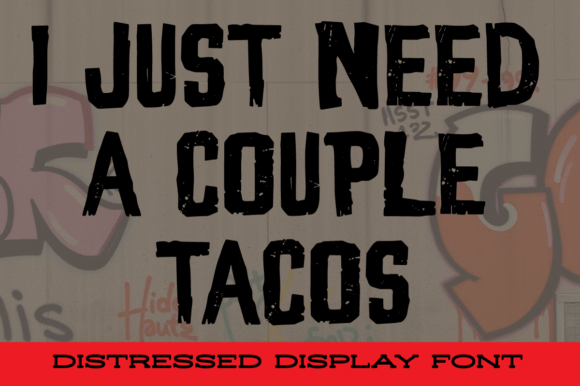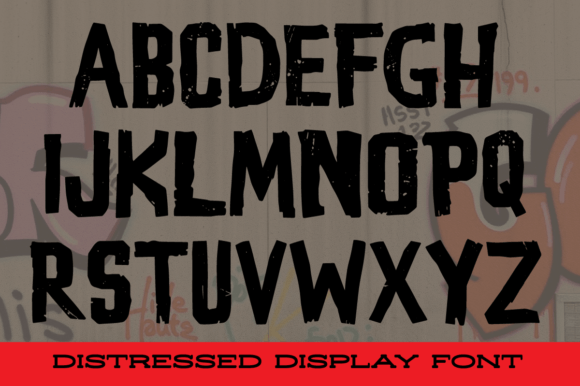
Dystorix Font: Unleash Your Rebellious Creativity
In the world of typography, fonts play a crucial role in conveying emotions, setting tone, and creating visual impact. For designers and crafters looking for a bold, edgy, and unconventional look, the Dystorix font is an excellent choice. This handcrafted font is designed to evoke a raw, rebellious energy, making it perfect for projects that require a gritty, distressed aesthetic.
The Raw, Grungy Look of Dystorix
Dystorix is a bold, grungy font that exudes an air of imperfection. Each letter appears to be roughly sketched by hand, with thick strokes that vary in width, giving the font an uneven, organic look. The characters are distressed, with chipped edges, splattered ink effects, and irregular cracks, as if they’ve been weathered by time or scratched onto a gritty surface. This unique texture adds a layer of depth and character to any design, setting it apart from more polished, conventional fonts.
Key Features of Dystorix Font
- Handcrafted with Imperfections: Each letter in Dystorix is carefully crafted to appear imperfect, as if drawn by hand with a bold, expressive stroke.
- Distressed Texture: The font features a distressed texture, complete with chipped edges, splattered ink effects, and irregular cracks, giving it a worn, weathered look.
- Bold and Grungy: Dystorix is a bold font with a grungy aesthetic, making it perfect for designs that require a strong, attention-grabbing presence.
- Organic Look: The font’s uneven, organic look adds a touch of humanity and whimsy to any design.
Uses for Dystorix Font
Dystorix is a versatile font that can be used in a variety of creative projects, including:
- Branding and Logo Design: The font’s bold, attention-grabbing presence makes it perfect for logos and branding projects that require a strong, memorable identity.
- Poster and Flyer Design: Dystorix is ideal for designing eye-catching posters and flyers that need to stand out from the crowd.
- Social Media Graphics: The font’s distressed texture and grungy aesthetic make it a great choice for social media graphics, such as Instagram posts and Facebook headers.
- Packaging Design: Dystorix can add a touch of edginess and sophistication to packaging design, making it perfect for products that require a bold, attention-grabbing look.
Tips for Using Dystorix Font
To get the most out of Dystorix, here are a few tips to keep in mind:
- Use it Sparingly: Due to its bold, attention-grabbing presence, it’s best to use Dystorix sparingly, as a headline or title font, rather than for body text.
- Experiment with Colors: The font’s distressed texture and grungy aesthetic lend themselves well to bold, bright colors that can help make your design pop.
- Pair it with Contrasting Fonts: Pair Dystorix with a clean, sans-serif font to create visual interest and add contrast to your design.
Dystorix is a unique, handcrafted font that offers a bold, grungy aesthetic perfect for designers and crafters looking to add a touch of rebellion and creativity to their projects. With its distressed texture, uneven strokes, and organic look, Dystorix is sure to make a statement in any design. Whether you’re working on a branding project, designing a poster, or creating social media graphics, Dystorix is an excellent choice for anyone looking to unleash their creative energy.